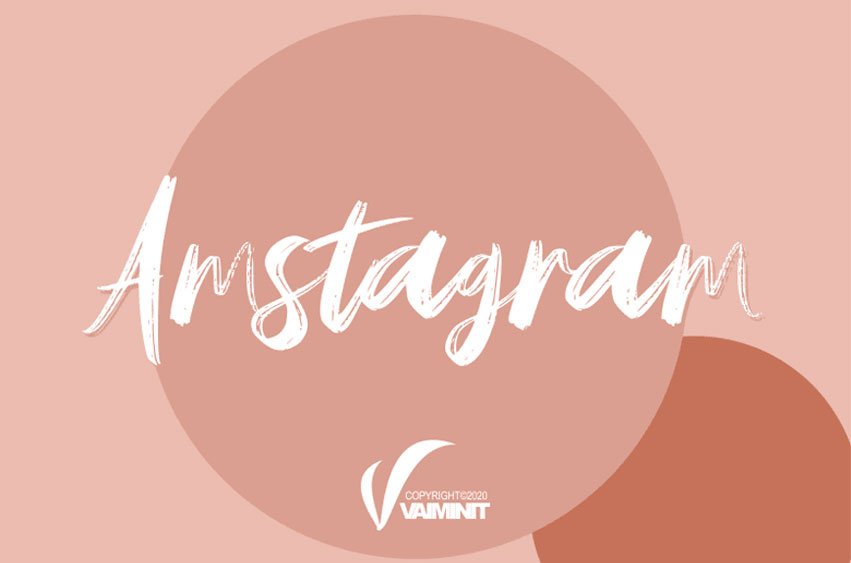
Amstagram Font is a standard font perfect for professional projects branding by font designer Vaiminit and perfect for enhancing the appearance of your project and suitable for print, weddings, quotes, and even wedding quotes!
All the letters have their own and elegant style; that is why this font can be used in different designs like fashionable logos, print designs, quotes, weddings and etc.